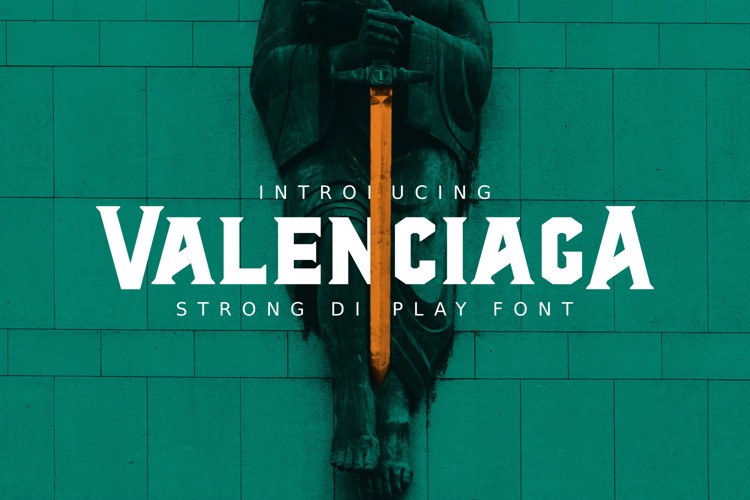
Valenciaga Font
VALENCIAGA is a strong display font. Valenciaga is a fully-kerned titlecase display typeface built for strong design vibe. Valenciaga is raw and uncut with sharp terminals and serifs that give off an aggressive appearance. The difference in depth between the uppercase and lowercase, making Valenciaga very suitable to be the display font for your product packaging, logo, branding, and more!